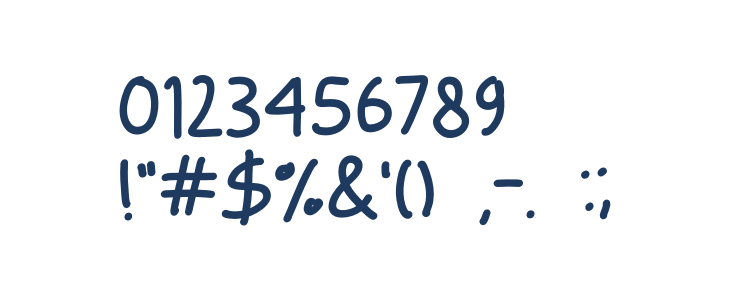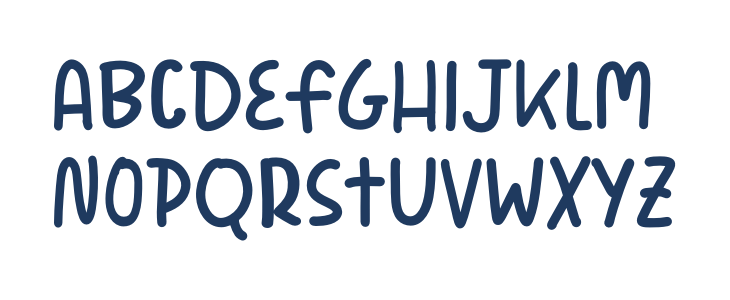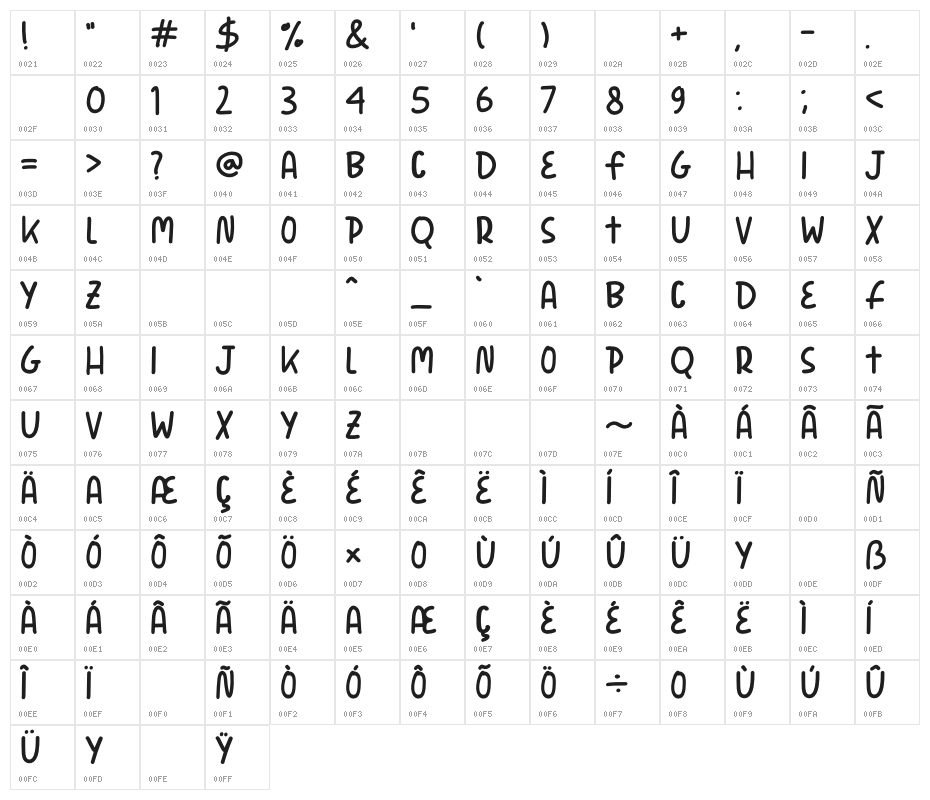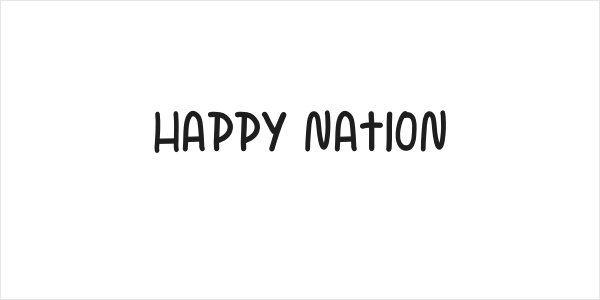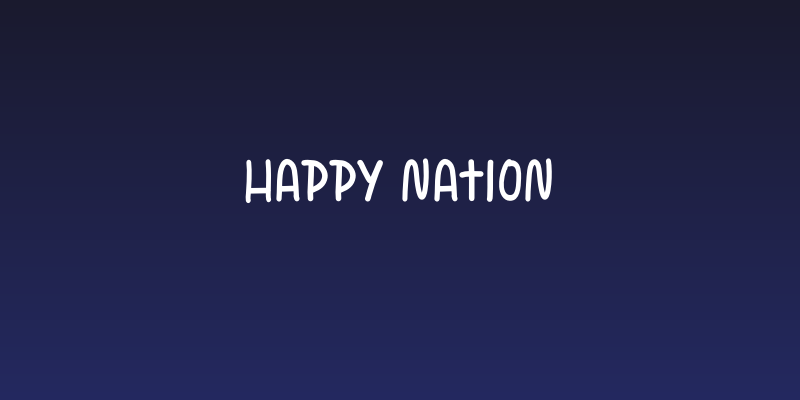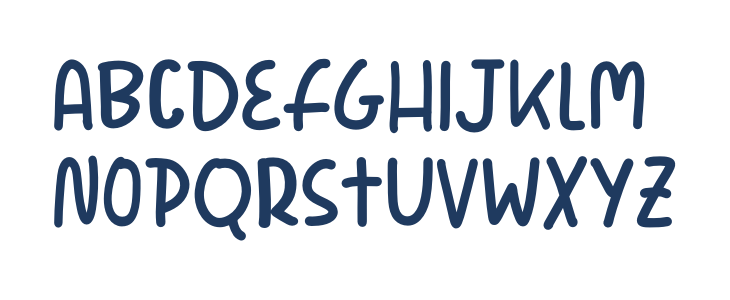
Happy Nation Font
Happy Nation Description
A playful, rounded handwritten typeface with consistent stroke width, informal character shapes, and a friendly, approachable appearance. The letters are slightly irregular, giving a casual and human touch.
| Overall Style | Playful, Informal, Friendly |
| Use Case | Headlines, Posters, ChildrenΓ’β¬β’s content, Informal communications |
| Proposed Projects | ChildrenΓ’β¬β’s books, greeting cards, posters, educational materials, informal branding. |